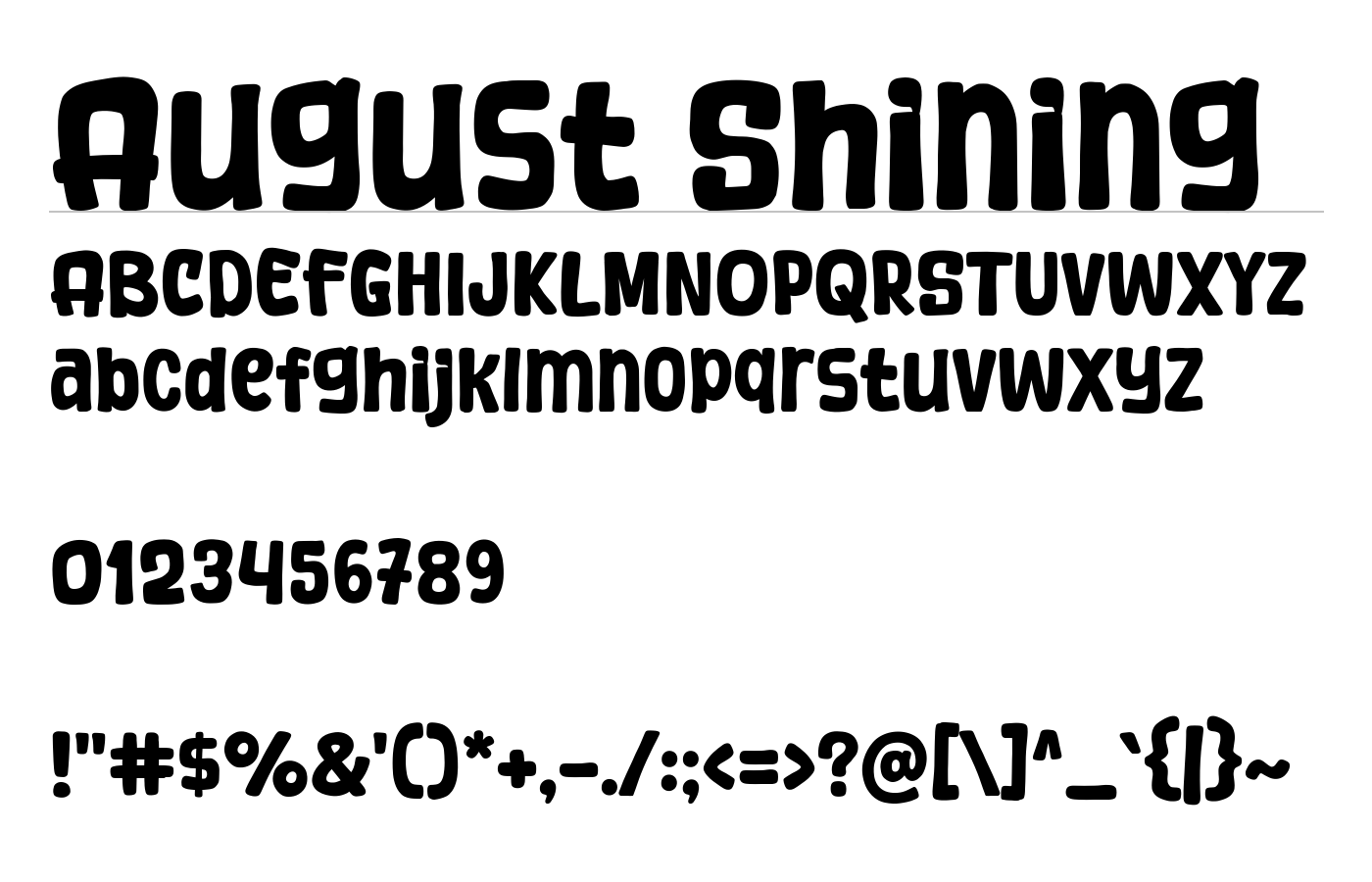
August Shining is a bold, playful sans serif font with rounded, irregular shapes that give it a friendly and informal feel. Its moderate x-height and soft stroke edges make it highly readable while maintaining a quirky charm, perfect for casual branding, children’s content, and fun editorial projects. This font works well in headlines and logos where a unique, approachable character is desired.
August Shining Font
About August Shining Font
| Font family | August Shining Font |